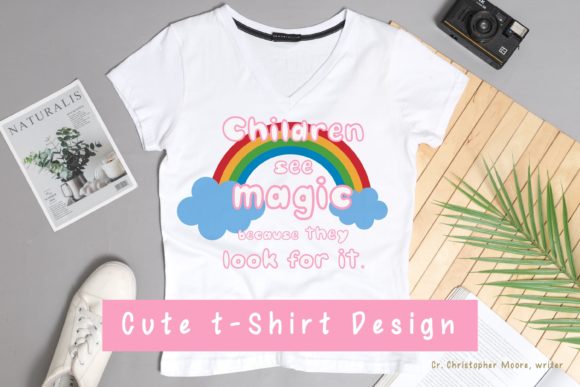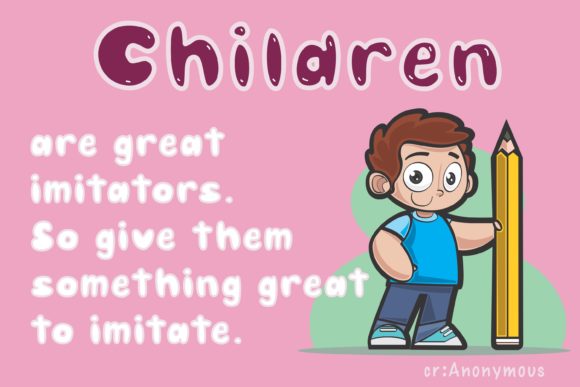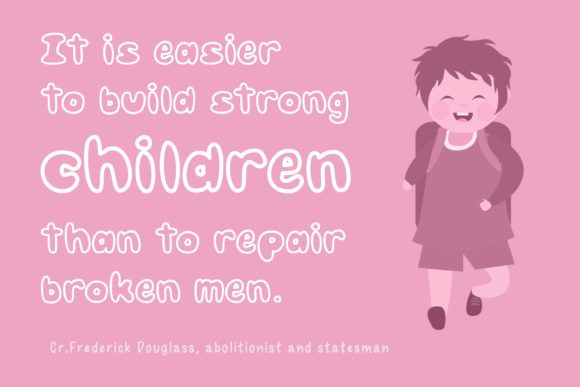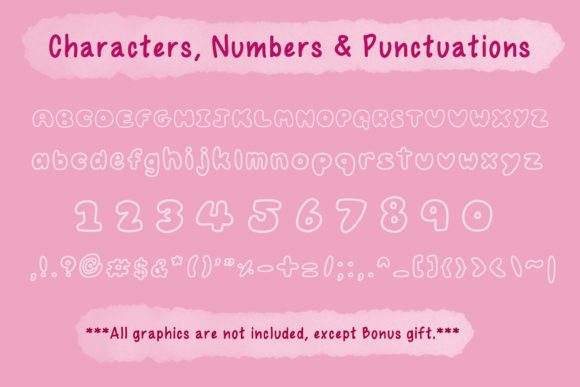
Bubbable Font: The Perfect Choice for Fun and Playful Designs
Are you looking for a font that embodies playfulness and authenticity? Look no further than Bubbable Font! This cute, fun, and bubbly display font is perfect for any children activity or school project. In this article, we’ll dive into the features and benefits of Bubbable Font, and explore how it can add a touch of whimsy to your designs.
What is Bubbable Font?
Bubbable Font is a display font designed to bring a sense of fun and playfulness to your designs. Its bubbly and rounded letters make it perfect for use in children’s books, school projects, and activity sheets. The font’s playful and authentic feel makes it an excellent choice for designers and crafters looking to add a personal touch to their work.
Features of Bubbable Font
- Cute and Playful Design: Bubbable Font features rounded and bubbly letters that are sure to bring a smile to anyone’s face.
- Authentic Feel: The font’s authentic feel makes it perfect for use in children’s activities and school projects.
- Easy to Read: Despite its playful design, Bubbable Font is easy to read, making it perfect for use in headings and titles.
- Versatile: Bubbable Font can be used in a variety of design projects, from children’s books to activity sheets and more.
Benefits of Using Bubbable Font
So, why should you choose Bubbable Font for your next design project? Here are just a few benefits of using this fun and playful font:
- Adds a Personal Touch: Bubbable Font adds a personal touch to your designs, making them more relatable and engaging.
- Perfect for Children’s Designs: The font’s playful and authentic feel makes it perfect for use in children’s books, activity sheets, and more.
- Unique and Creative: Bubbable Font is a unique and creative font that will set your designs apart from the rest.
How to Use Bubbable Font in Your Designs
Using Bubbable Font in your designs is easy! Here are a few tips to get you started:
- Use it as a Display Font: Bubbable Font is perfect for use as a display font in headings and titles.
- Pair it with Other Fonts: Bubbable Font pairs well with other fonts, making it easy to create visually appealing designs.
- Experiment with Colors: The font’s playful design makes it perfect for use with bright and bold colors.
Design Ideas Using Bubbable Font
Need some inspiration for your next design project? Here are a few ideas to get you started:
- Children’s Book: Use Bubbable Font to create a fun and engaging children’s book that kids will love.
- School Project: Bubbable Font is perfect for use in school projects, such as posters, presentations, and more.
- Activity Sheets: Create fun and engaging activity sheets for kids using Bubbable Font.
- Crafting Projects: Use Bubbable Font to add a personal touch to your crafting projects, such as signs, banners, and more.
In conclusion, Bubbable Font is a fun and playful display font that is perfect for any children activity or school project. Its cute and bubbly design makes it a great choice for designers and crafters looking to add a personal touch to their work. With its ease of use and versatility, Bubbable Font is sure to become a favorite in your design arsenal.